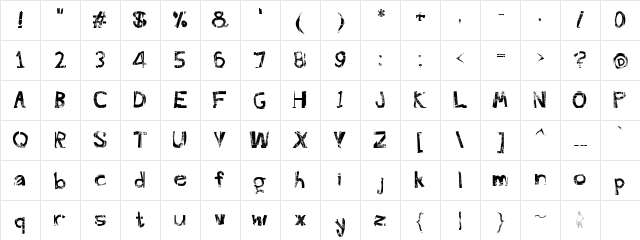
FreekTure Regular Font Preview
FreekTure Regular
FreekTure Regular Font Details
| Foundry | Vered Gilad Friedman |
| Designer | Vered Gilad Friedman |
Design Context for FreekTure Typeface
FreekTure is a composed and adaptable typeface that performs quietly and consistently across a wide range of design contexts.